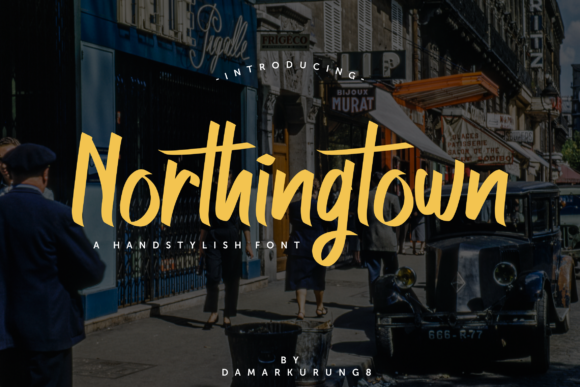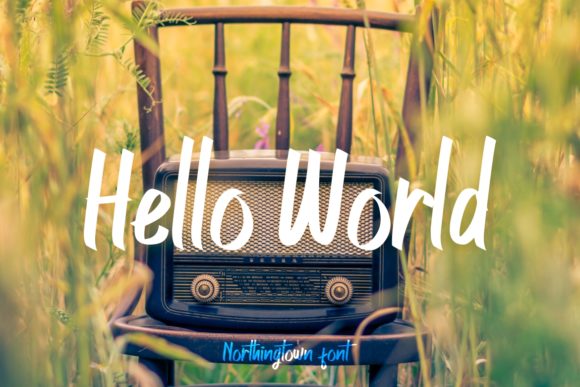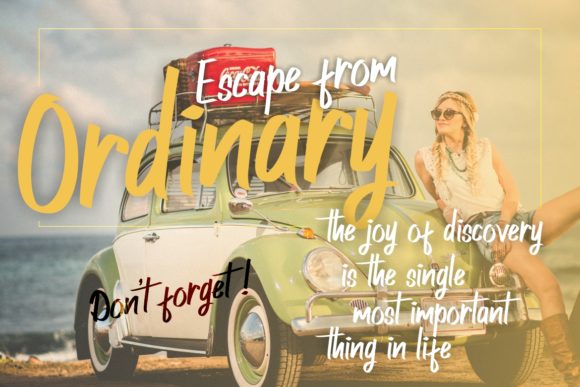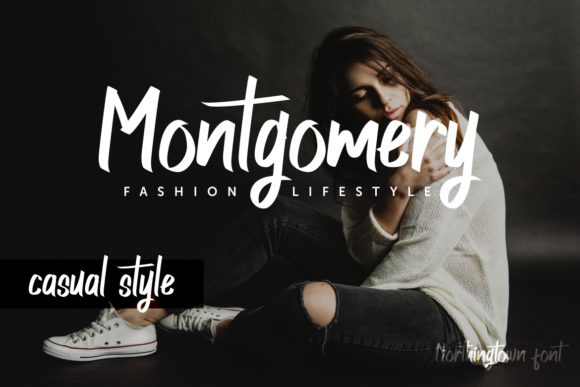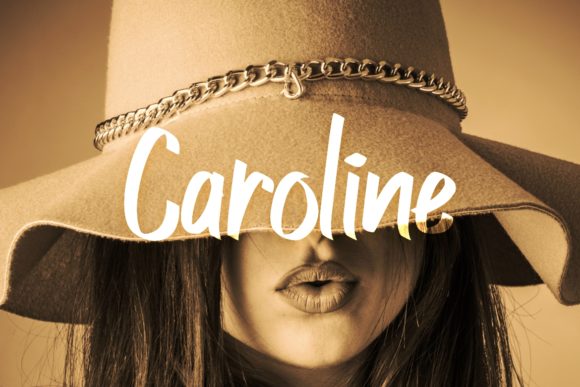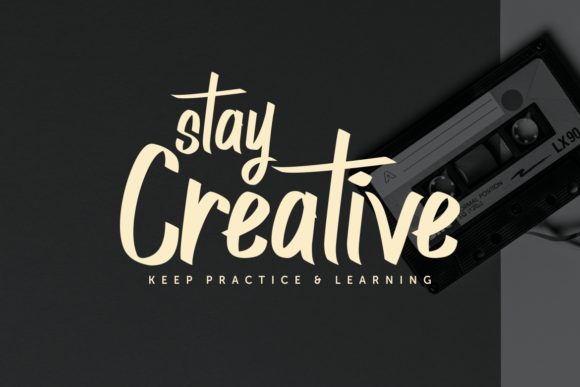
About Northingtown Font
Enter The Northingtown, a stunning handwritten font that captivates with its smooth curves, making it an ideal choice for crafters and creatives alike. This font not only boasts a striking style but also exudes a level of elegance that lends itself to a wide array of design applications.
Crafters, in particular, will appreciate the smooth curves and artistic flair of The Northingtown. Whether you’re working on DIY projects, handmade goods, or any craft-related endeavor, this font brings a touch of sophistication to your creations. Its versatility extends far beyond the crafting realm, making it a valuable asset for a myriad of design purposes.
The Northingtown’s aesthetic appeal is well-suited for logos, where a distinctive and memorable typography is essential for brand identity. Its smooth curves and handwritten charm add a personal touch that resonates with audiences. Magazines and covers benefit from the font’s stylish demeanor, elevating the visual impact of text and making content more engaging.
Quotes come to life with The Northingtown, as its elegant yet striking style adds emphasis and personality to every word. Invitations take on a unique and sophisticated character when adorned with this font, setting the tone for special events with a touch of grace.
In essence, The Northingtown is more than just a font; it’s a design companion that effortlessly enhances your creative projects. Whether you’re crafting, designing logos, creating magazine layouts, or composing invitations, The Northingtown brings a seamless blend of smooth curves and striking style. Embrace the beauty of this handwritten font and let it elevate your designs across a spectrum of creative endeavors.